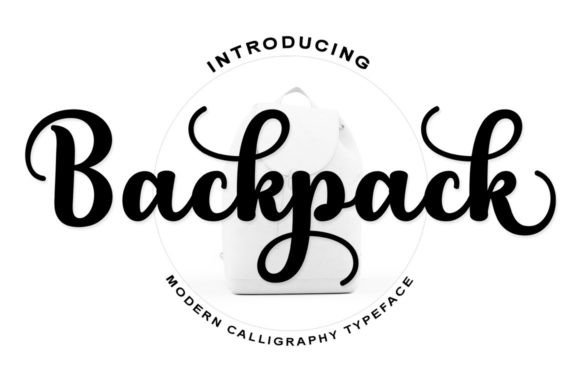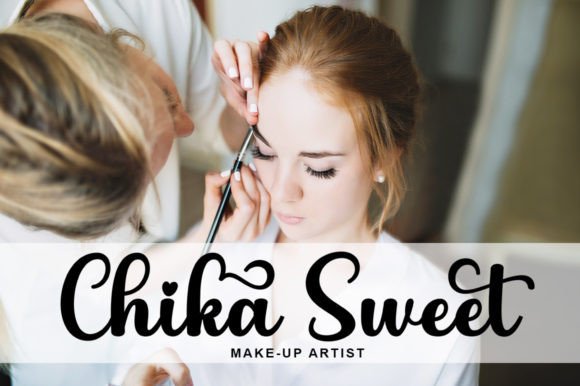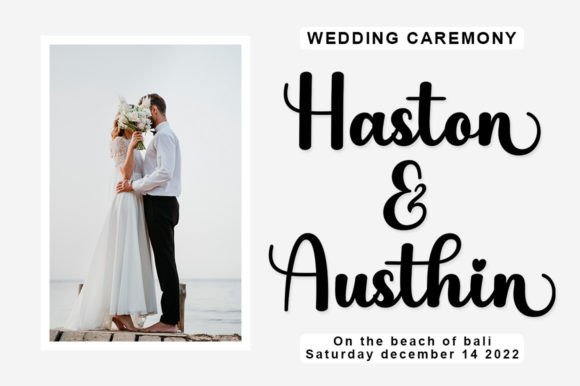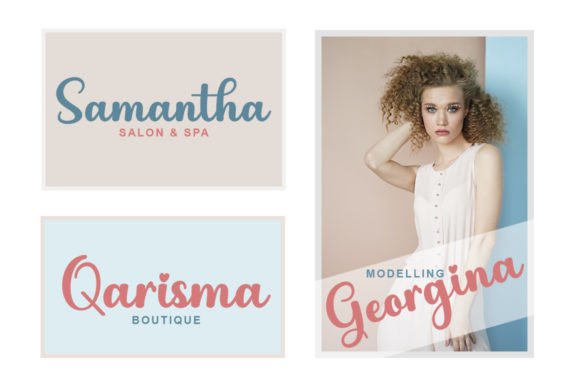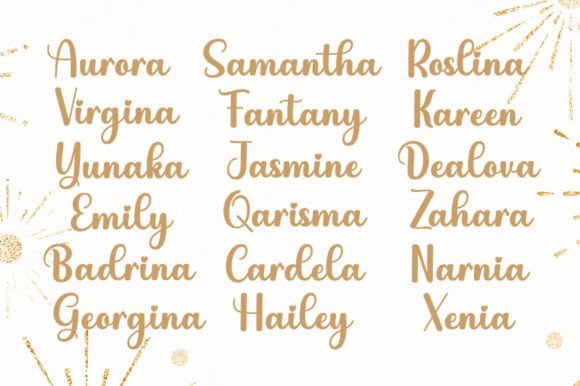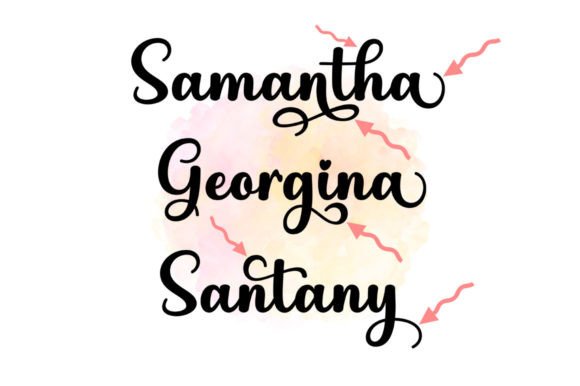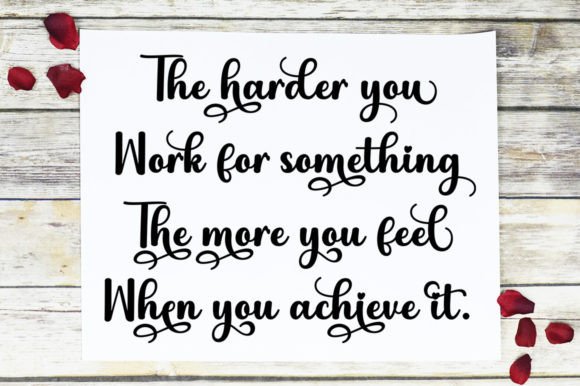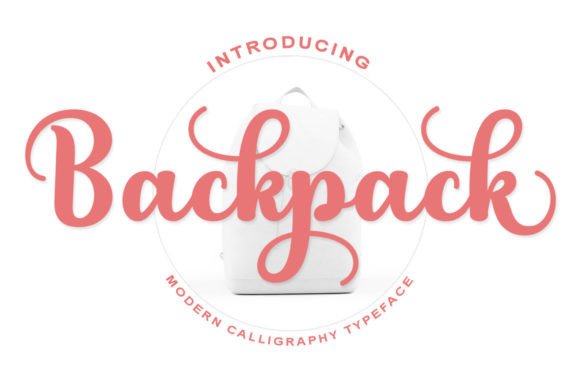
**Backpack** is a delightful and tidy script font that radiates elegance and sophistication. It is a font specially crafted for those who seek to infuse a beautiful and rejuvenating appearance into their designs.
The font’s lovely and neat script style is the essence of its appeal. It brings an air of refinement and classic beauty to your designs, making them stand out and exude an elegant quality. Whether you’re creating elegant invitations, designing branding materials, or working on any other design project, **Backpack** seamlessly fits into various design contexts.
**Backpack** is equally versatile in digital and print applications. Whether you’re using it to craft a stylish digital design or incorporating it into the pages of printed materials, the font maintains its elegant and tidy character. Its readability ensures that your message is conveyed effectively, while its script style adds an extra layer of visual appeal.
What sets **Backpack** apart is its ability to convey a sense of elegance and class. It invites your audience to engage with your creative ideas in a way that resonates with its distinct and sophisticated quality. With **Backpack** as part of your creative toolkit, you have the means to infuse a sense of refinement and creativity into your designs, making them memorable and captivating.
**Backpack** offers a wide array of customization options, allowing you to fine-tune your text to match your creative vision precisely. This flexibility empowers you to craft designs that align with your artistic preferences with precision.
In conclusion, **Backpack** is more than just a font; it’s a design asset that elevates your creative projects with elegance, class, and a touch of beauty. Embrace its script style, and let it inspire you to craft designs that exude refinement and creativity. With **Backpack** at your disposal, your creative possibilities are expansive, enabling you to create captivating and unforgettable works of art through its lovely and neatly crafted typography.